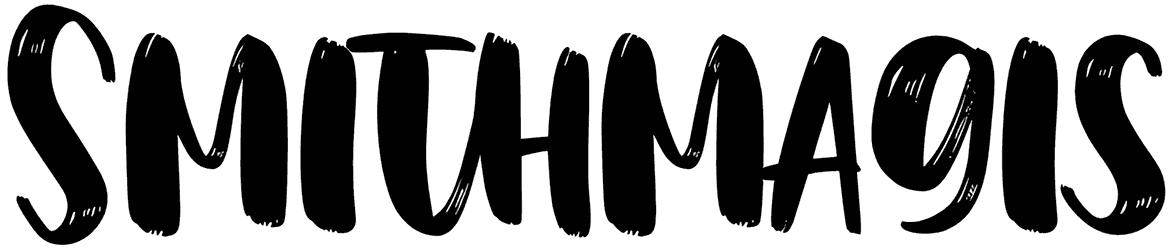
Smithmagis Font
Smithmagis is a handwritten font that you can set on your words to give them a bold and artistic face. This brush font doesn’t hold forth numerals, punctuation, and most of the lowercase, but has two styles for some uppercase letters. Smithmagis is a modern item for use in many designs, such as wordmarks, album covers, posters, or similar.